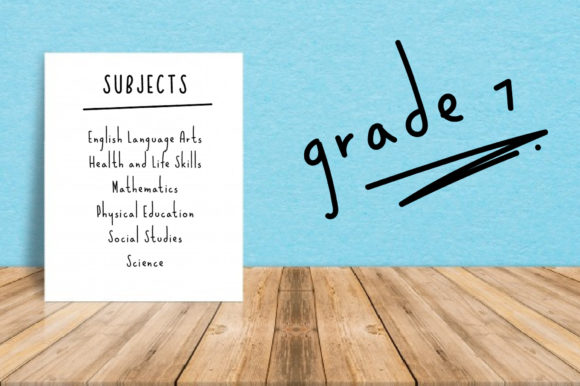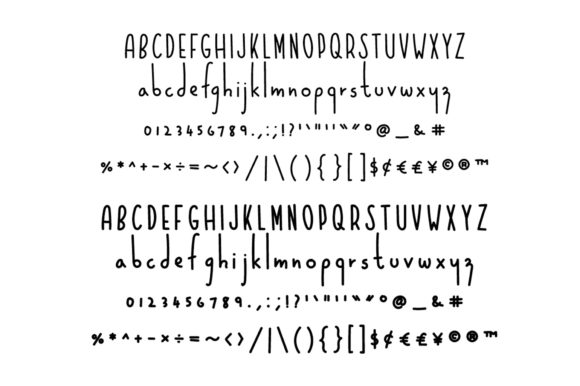
Introducing Grade 7 Font: The Perfect Handwritten Font for Chalkboard Quotes and Teaching Materials
Are you a designer, teacher, or crafter looking for a font that can add a personal touch to your designs? Look no further than Grade 7 Font! This cute and simple lettered handwritten font is perfect for creating chalkboard quotes, teaching materials, and other educational resources. With its authentic look, Grade 7 Font can help you create designs that feel realistic and engaging.
What is Grade 7 Font?
Grade 7 Font is a handwritten font that mimics the look of chalkboard writing. Its simple and cute design makes it perfect for use in educational settings, such as classrooms, worksheets, and teaching materials. The font is designed to look like it was written on a chalkboard, with a slightly imperfect and handwritten feel that adds a personal touch to your designs.
Features of Grade 7 Font
So, what makes Grade 7 Font so special? Here are just a few of its key features:
- Cute and Simple Design: Grade 7 Font has a simple and adorable design that is perfect for use in educational settings.
- Handwritten Look: The font has a handwritten look that adds a personal touch to your designs.
- Chalkboard-Inspired: The font is designed to look like it was written on a chalkboard, making it perfect for creating chalkboard quotes and teaching materials.
- Authentic Look: Grade 7 Font has an authentic look that will make your designs feel realistic and engaging.
Uses for Grade 7 Font
So, what can you use Grade 7 Font for? The possibilities are endless! Here are just a few ideas to get you started:
- Chalkboard Quotes: Use Grade 7 Font to create chalkboard quotes that are perfect for social media, blogs, or educational resources.
- Teaching Materials: Grade 7 Font is perfect for creating teaching materials, such as worksheets, lesson plans, and educational resources.
- Crafting Projects: Use Grade 7 Font to add a personal touch to your crafting projects, such as scrapbooking, card making, and DIY signs.
- Design Projects: Grade 7 Font is perfect for use in design projects, such as creating posters, flyers, and brochures.
Why Choose Grade 7 Font?
So, why should you choose Grade 7 Font for your next project? Here are just a few reasons:
- Easy to Read: Grade 7 Font is easy to read, even at small sizes.
- Versatile: The font is versatile and can be used in a variety of contexts, from educational resources to crafting projects.
- Unique Look: Grade 7 Font has a unique look that will add a personal touch to your designs.
- High-Quality: The font is high-quality and will look great in any design.
In conclusion, Grade 7 Font is a great choice for designers, teachers, and crafters who are looking for a font that can add a personal touch to their designs. With its cute and simple design, handwritten look, and chalkboard-inspired style, Grade 7 Font is perfect for creating chalkboard quotes, teaching materials, and other educational resources. So why not give Grade 7 Font a try today and see how it can enhance your designs?
Whether you’re a seasoned designer or just starting out, Grade 7 Font is a great addition to your font collection. Its versatility, unique look, and high-quality design make it a great choice for a wide range of projects. So go ahead, get creative, and see what you can do with Grade 7 Font!